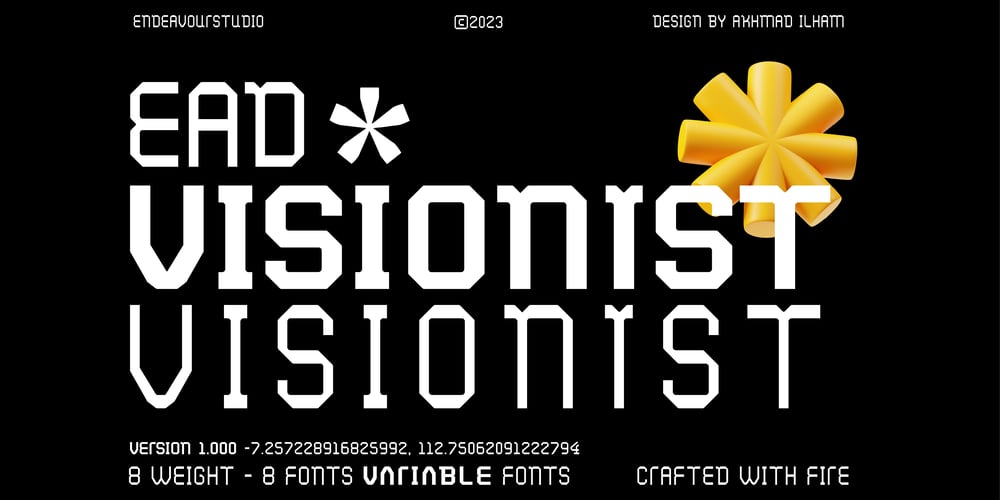
EAD Visionist Font Family was designed by Akhmad Ilham and published by Endeavour Studio. EAD Visionist contains 8 styles and family package options. EAD Visionist: a font blending the bold spirit of the future with the rugged allure of brutalism. Its strong, bold strokes and subtle roundness convey resilience and modernity. Ideal for websites and brand identities, this font is more than a typographic choice—it’s a creative catalyst, infusing strength and innovation into your designs. Step into the future with EAD Visionist, where each character speaks to a powerful, forward-thinking vision.